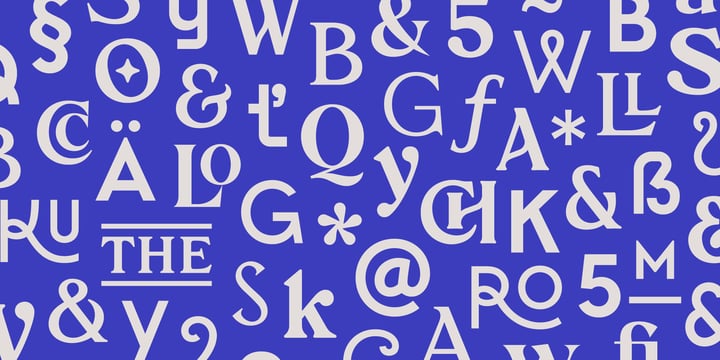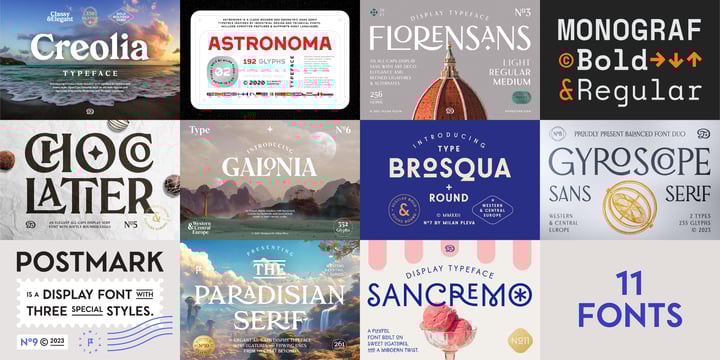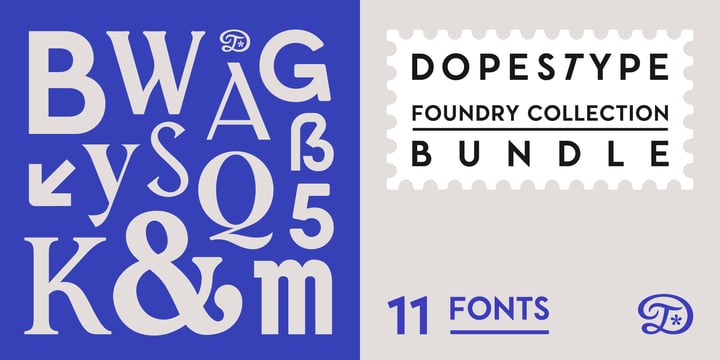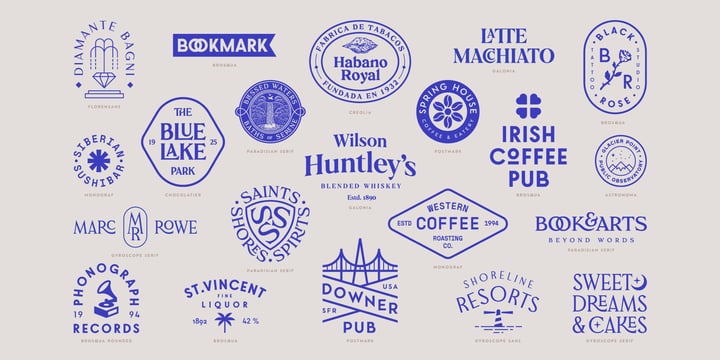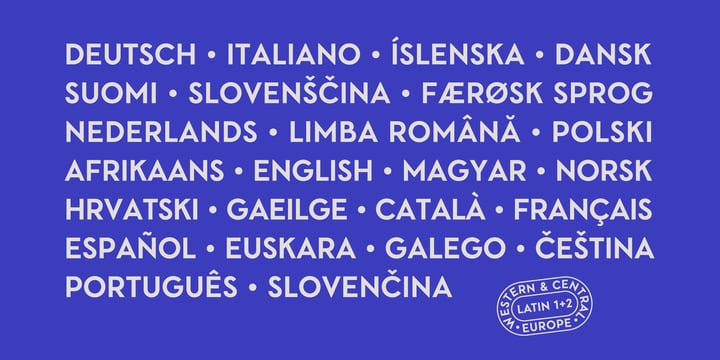
Dopestype Foundry Collection
The Dopestype Complete Font Bundle brings together the full collection of typefaces created by Dopestype. This curated set includes a range of expressive (mainly) display fonts designed for impactful typography, branding, and creative design.
Each typeface in the collection offers its own personality – from bold and striking styles to elegant and decorative letterforms. Many of the fonts feature distinctive ligatures and unique typographic details that add character and visual rhythm to headlines, logos, and graphic compositions.
Whether you're building a brand, designing eye-catching headlines, or crafting distinctive typography, the Dopestype Complete Font Bundle provides a rich selection of display fonts ready for modern creative projects.